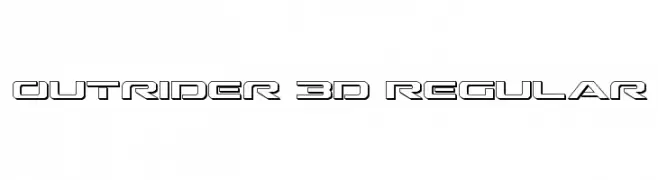
3D
A dynamic, futuristic font with angular lines and a semi-bold, italicized style.
Outrider Semi-Condensed Italic Font
Font by Daniel Zadorozny - www.iconian.com
A sleek, italicized, semi-condensed font with a modern and dynamic style.
Outrider Font
A futuristic, angular font with bold, geometric characters.
Outrider Semi-Bold Font
A bold, futuristic font with sharp, angular edges and a geometric structure.
Outrider Expanded Bold Italic Font
A bold, italic, and expanded font with a futuristic and dynamic style.
Outrider Italic Font
Font by Daniel Zadorozny - www.iconian.com
A sleek, futuristic italic font with sharp, angular edges.
Outrider Condensed Font